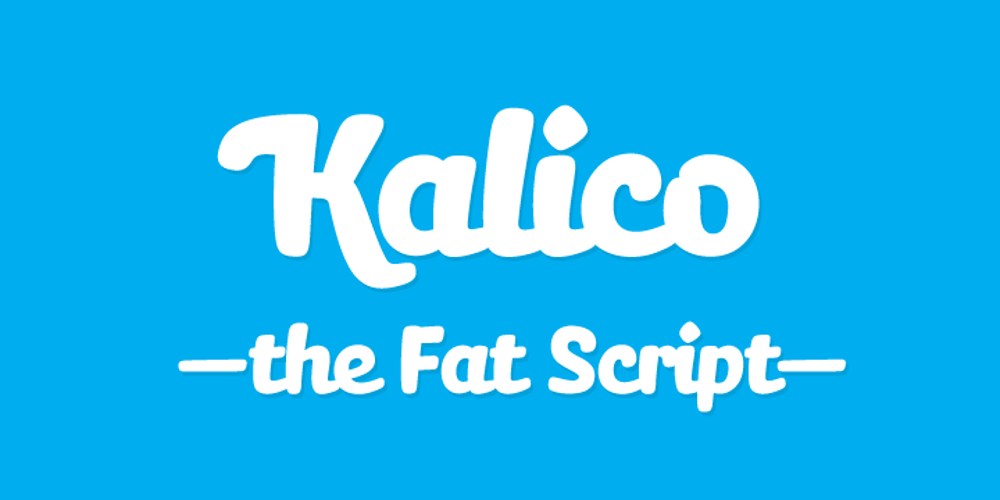
Kalico
Kalico font
Kalico Font Family was designed by Richard Miller and published by Miller Type Foundry. Kalico contains 2 styles and family package options. Kalico is the fat script that makes a statement! Comes with oldstyle figures and available with a swash counterpart.